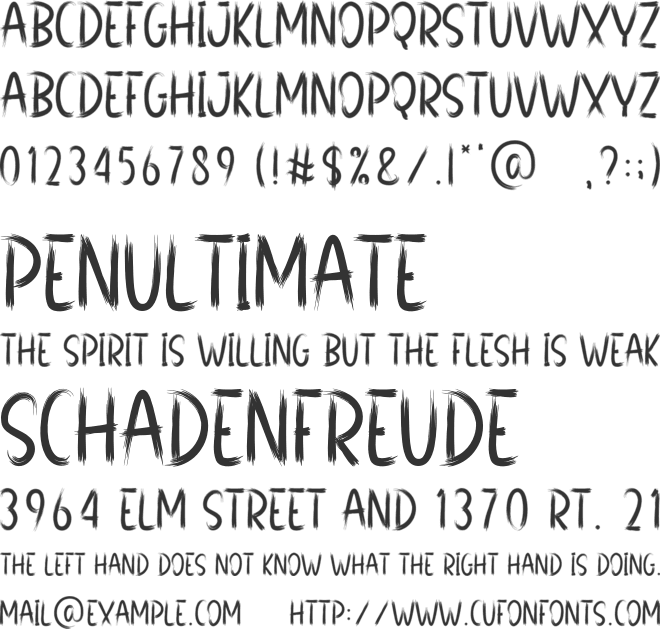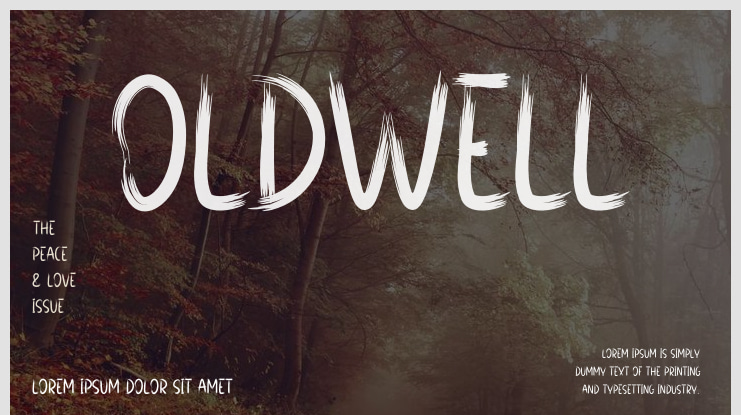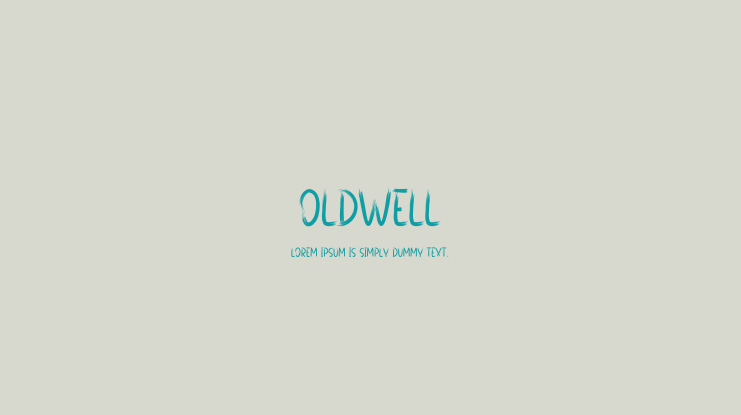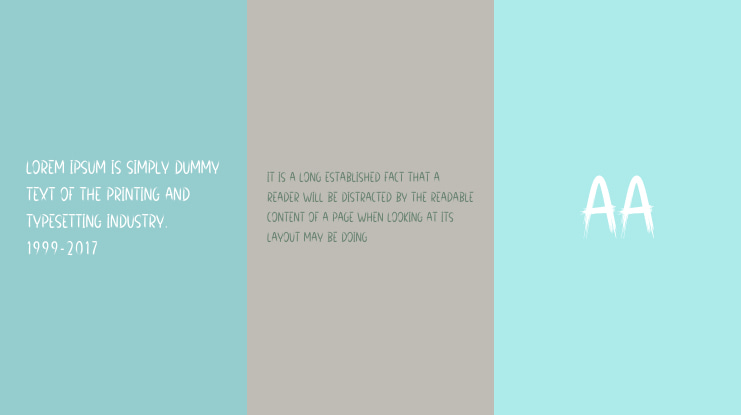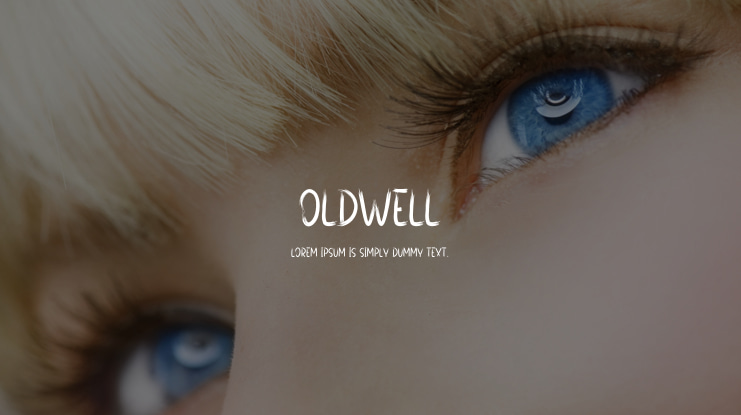
Oldwell Font
This is a sweet and friendly handwritten display font. Cute and fun, this font is ideal for creating wedding invitations, cards, or any other design that might need a playful touch!